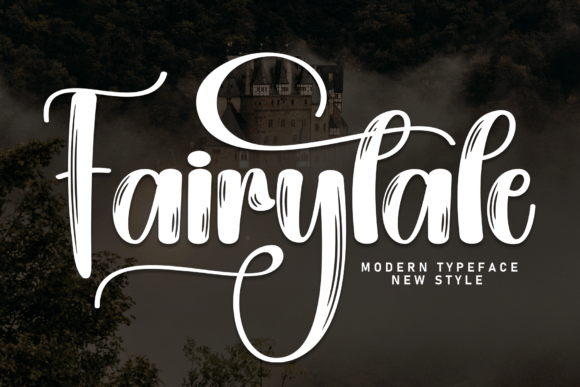
Discover the Magic of Fairytale Font
Have you ever found yourself lost in a world of imagination, surrounded by the whimsy of fairies and the wonder of fantasy? That’s exactly where the Fairytale Font comes in – a sweet and friendly handwritten font that transports you to a realm of endless creativity.
Whether you’re a seasoned designer or a budding artist, the Fairytale Font is the perfect tool to bring your most enchanting ideas to life. Its natural and unique style makes it incredibly versatile, allowing you to unleash your imagination and create anything from whimsical children’s books to dreamy wedding invitations.
With the Fairytale Font, the only limit is your imagination, making it a valuable asset for designers looking to add a touch of magic to their work.
Fairytale Font Key Features
- Font Family: Fairytale Font includes a range of 6 unique font styles, from elegant script to whimsical cursive.
- Size: The font family includes 6 font styles with 6 weights each, offering a total of 36 font sizes to choose from.
- Resolution: Designed to be scalable, Fairytale Font is suitable for use at high resolutions (up to 300 DPI).
- Unique Characteristics: The font features intricate details, flourishes, and ornaments, making it perfect for adding a touch of magic to your designs.
- Language Support: Fairytale Font supports a wide range of languages, including Latin, Cyrillic, and Greek scripts.
Designer Review: Fairytale Font
As a designer, I was excited to try out the Fairytale Font, with its promise of whimsical charm and classic elegance. Here’s my honest review of this font:
- Unique aesthetic: The Fairytale Font has a distinctive, hand-drawn feel that’s perfect for creating a sense of enchantment and wonder.
- High-quality design: The font is well-crafted, with smooth lines and precise typography that makes it easy to read.
- Good for creative projects: The Fairytale Font is ideal for projects that require a touch of fantasy or romance, such as children’s books, wedding invitations, or fantasy fiction covers.
- Limited font weights: The Fairytale Font comes in a limited range of weights, which may not be suitable for projects that require a lot of font variations.
- Not suitable for body text: While the font is great for headlines and titles, it may not be the best choice for large blocks of body text, as it can be difficult to read in certain font sizes.
Overall, I think the Fairytale Font is a great choice for designers who want to add a touch of magic to their projects. While it may have some limitations, its unique aesthetic and high-quality design make it a great addition to any designer’s toolkit.
Tip: Use Fairytale Font for titles, headings, and emphasis to create a whimsical and magical atmosphere.
Tip: Use Fairytale Font for illustrations, graphics, and other design elements to add a touch of fantasy and wonder.
Tip: Use Fairytale Font for headings, titles, and emphasis to create a magical and enchanting atmosphere.
Fairytale Font is perfect for:
- Children’s book covers and illustrations.
- Party decorations and signage.
- Graphic design projects that require a whimsical and magical touch.
Compared to Fairytale Font, Copperplate Script has a more refined and elegant look, with smoother lines and a more uniform letter spacing. It is also more versatile and can be used in a variety of contexts, from formal to informal.
Pacifico is a modern script font that is perfect for use in designs that require a touch of whimsy and playfulness. It is ideal for use in logos, branding, and advertising where a unique and eye-catching font is required.
Compared to Fairytale Font, Pacifico has a more casual and relaxed look, with a more fluid and connected letterform. It is also more suitable for use in digital designs and can be easily customized for various applications.
Great Vibes is a beautiful script font that is reminiscent of 19th-century handwriting. It is ideal for use in designs that require a sense of nostalgia and romance, such as book covers, music albums, and wedding invitations.
Q: What is the recommended font size for using Fairytale Font?
The recommended font size for using Fairytale Font is between 10pt and 24pt. This range allows for clear readability and optimal aesthetic appeal. However, feel free to experiment with different font sizes to suit your design needs.